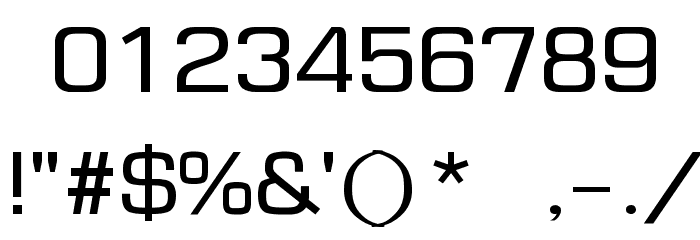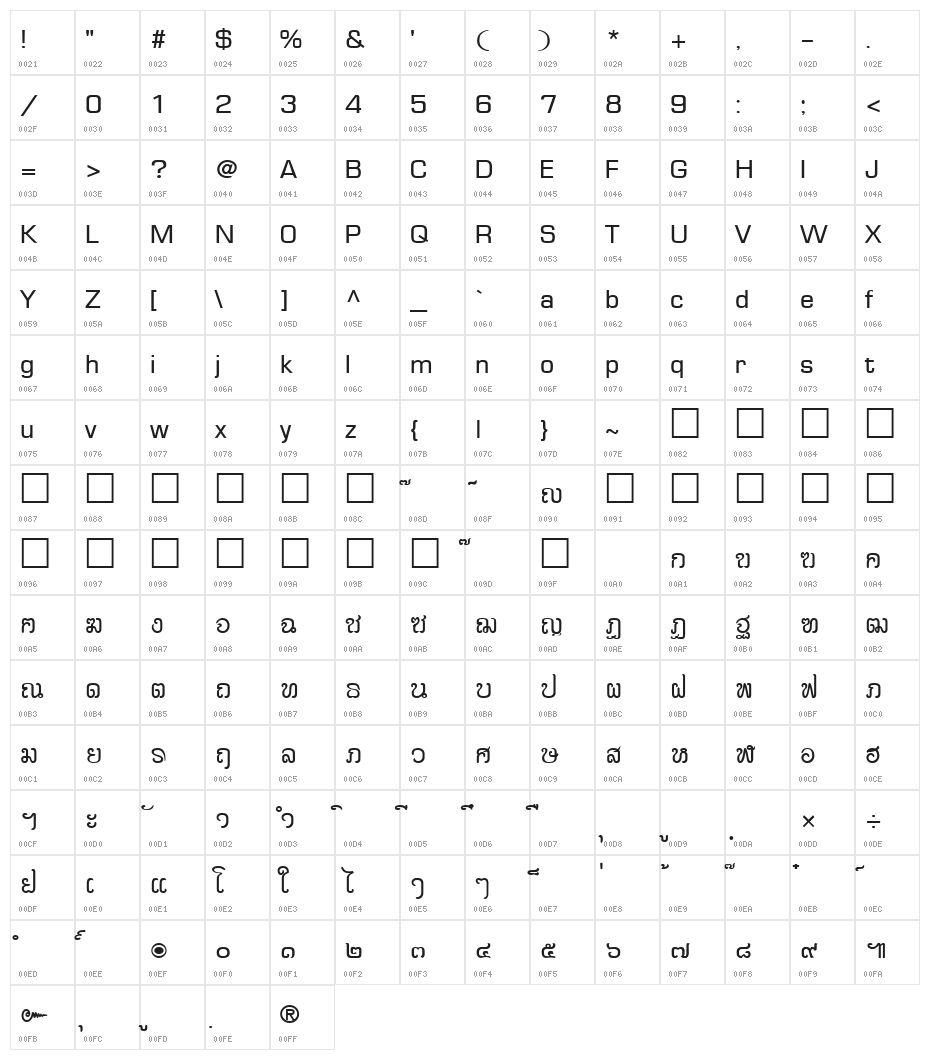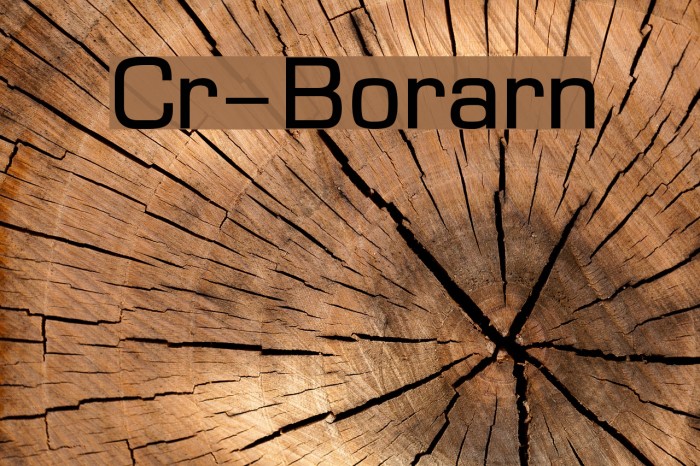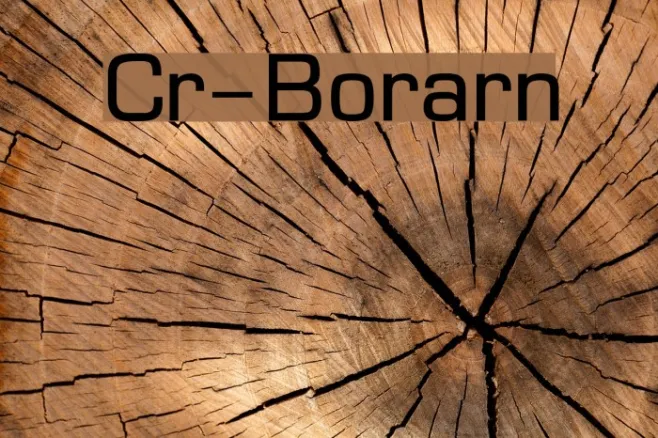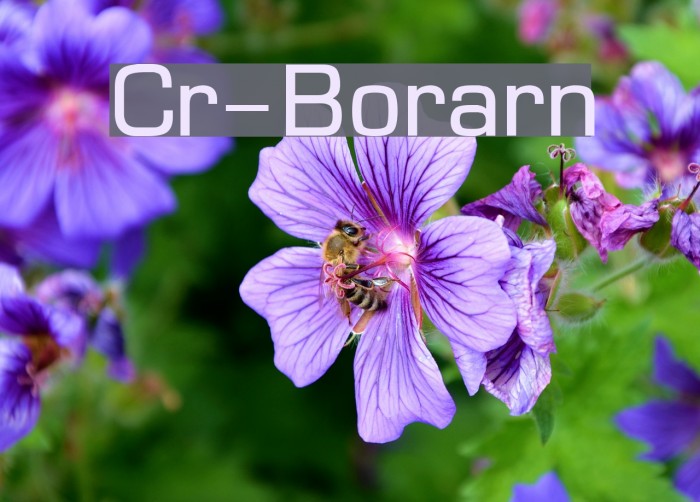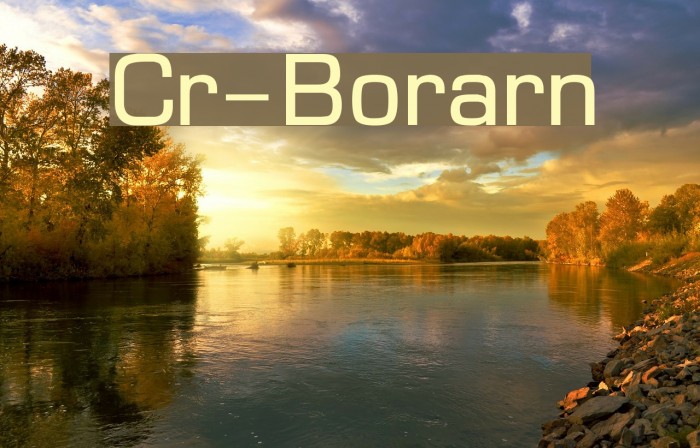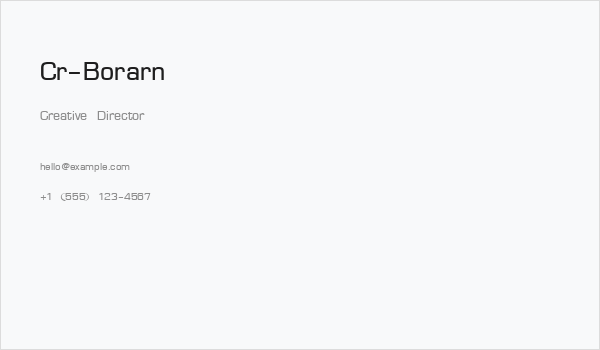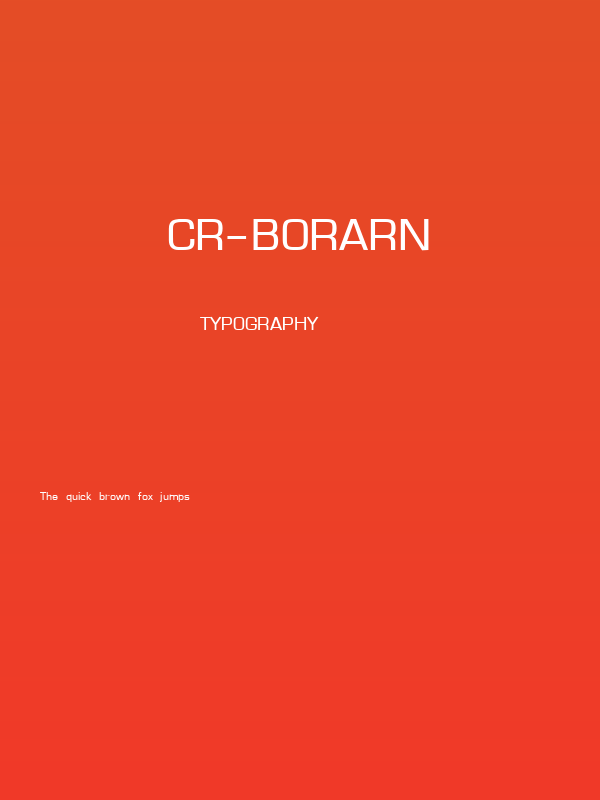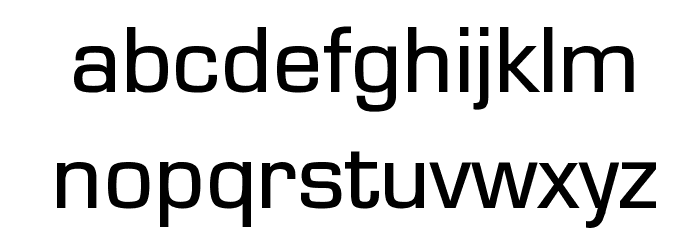
Cr-Borarn Font
Cr-Borarn Description
This font exhibits a modern and clean sans-serif style, characterized by its geometric and uniform letterforms. The uppercase and lowercase characters maintain a consistent height and width, providing a balanced and harmonious appearance. The numerals are clear and legible, matching the overall aesthetic of the alphabet. Special characters are well-integrated, ensuring versatility in various design contexts. The font's design is minimalistic, making it suitable for contemporary applications where clarity and simplicity are desired.
| Proposed Projects | Ideal for branding, digital interfaces, advertising, and editorial design where a modern and clean look is essential. |